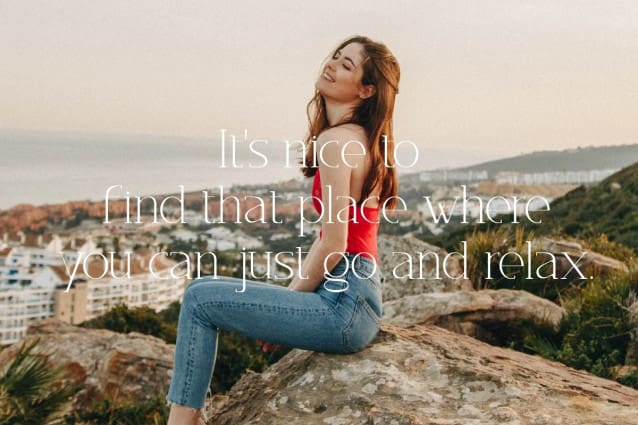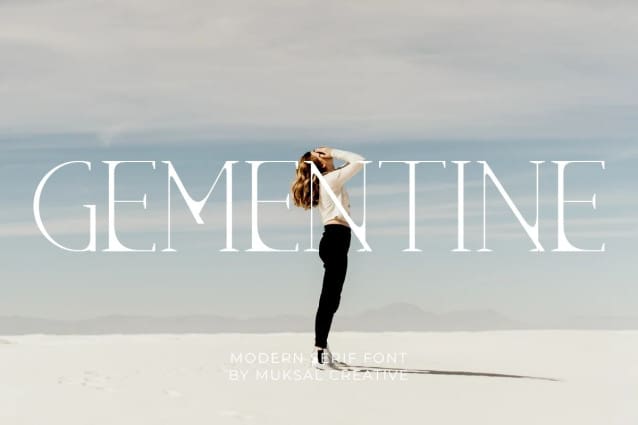
Gementine Font
Gementine Font is a modern serif font that exudes an elegant charm and understated sophistication. Its graceful lines strike a delicate balance between subtlety and strength, making it an ideal choice for branding logos aimed at the feminine market, particularly within the fashion industry.
Each letter is intricately detailed, showcasing well-proportioned elements that impart a soft touch while retaining a commanding presence. Gementine evokes an exclusive and refined aura, perfectly suited for brands seeking to showcase gracefulness and beauty in their logo designs.
With its seamless blend of finesse and assertiveness, this font stands as a prime option for brands aiming to embody the beauty, grace, and empowering essence of femininity within their brand identity.